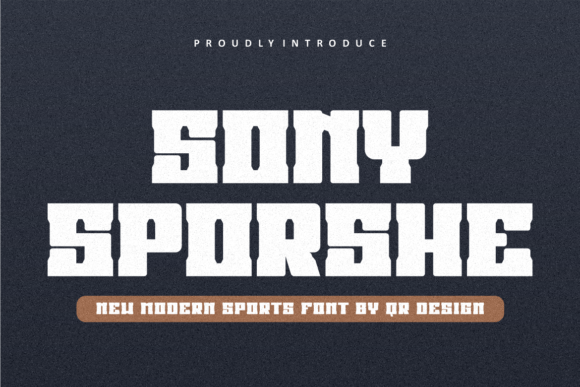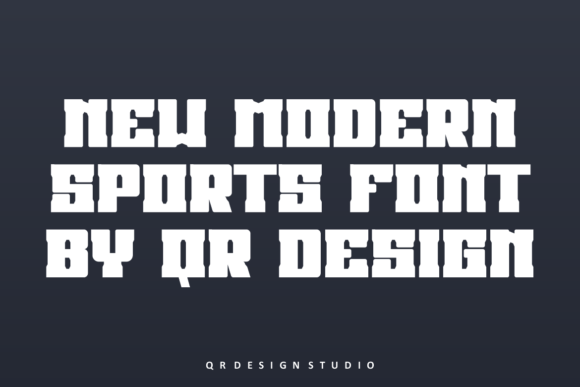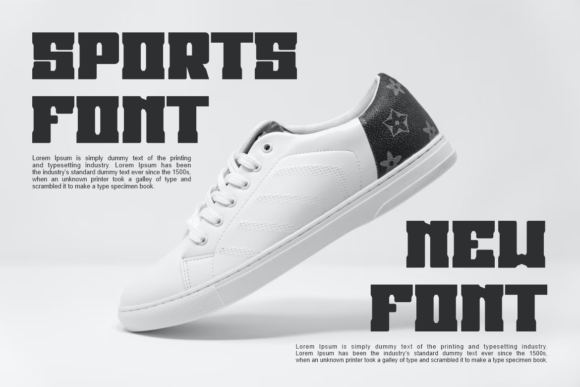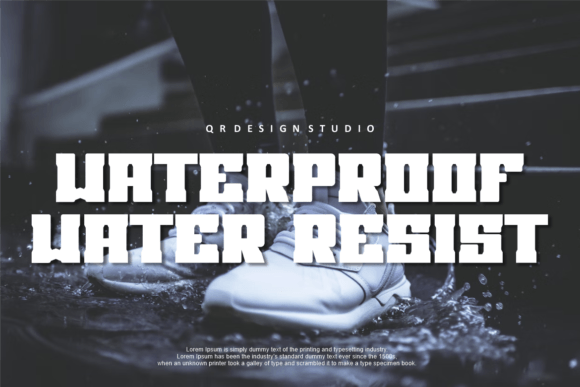
About Sony Sporshe
Sony Sporshe is a bold and authentic slab serif font.
The font is suitable for any branding project like logo, t-shirt printing, e-sport, and many more.
It is sure to look outstanding in a wide range of contexts.
The font is suitable for any branding project like logo, t-shirt printing, e-sport, and many more.
It is sure to look outstanding in a wide range of contexts.